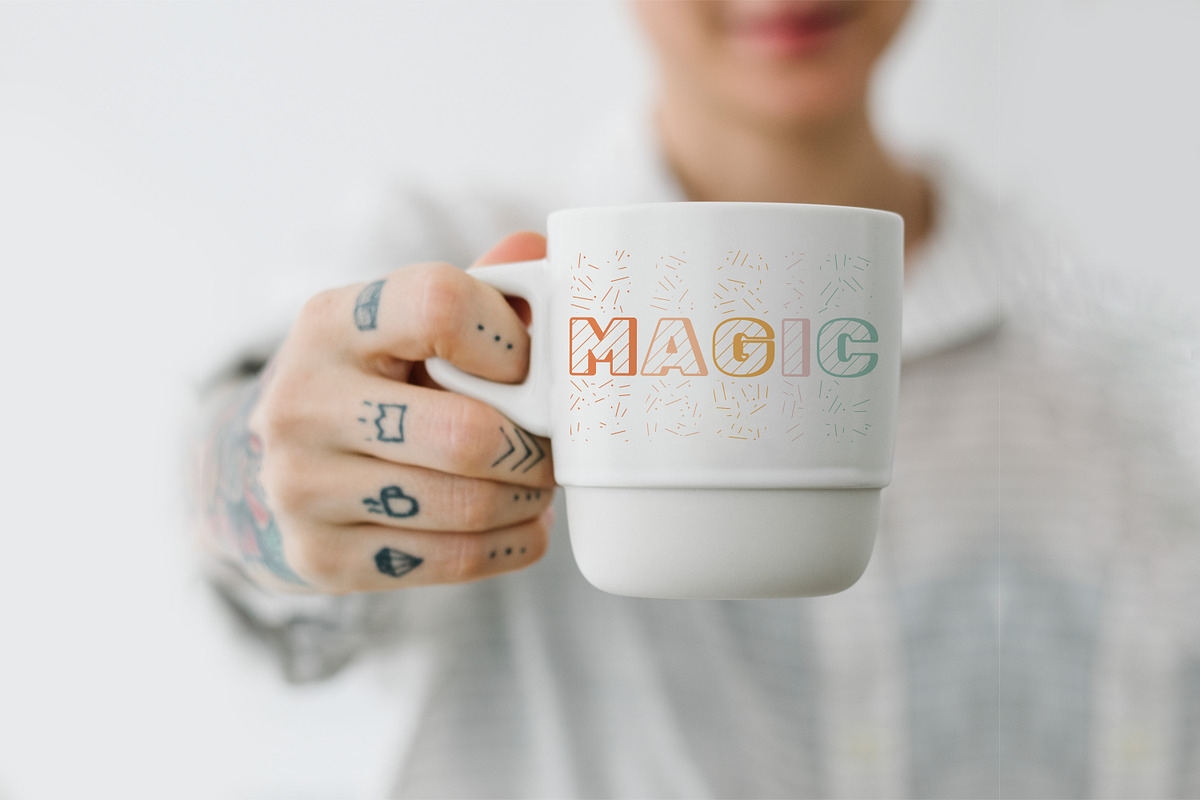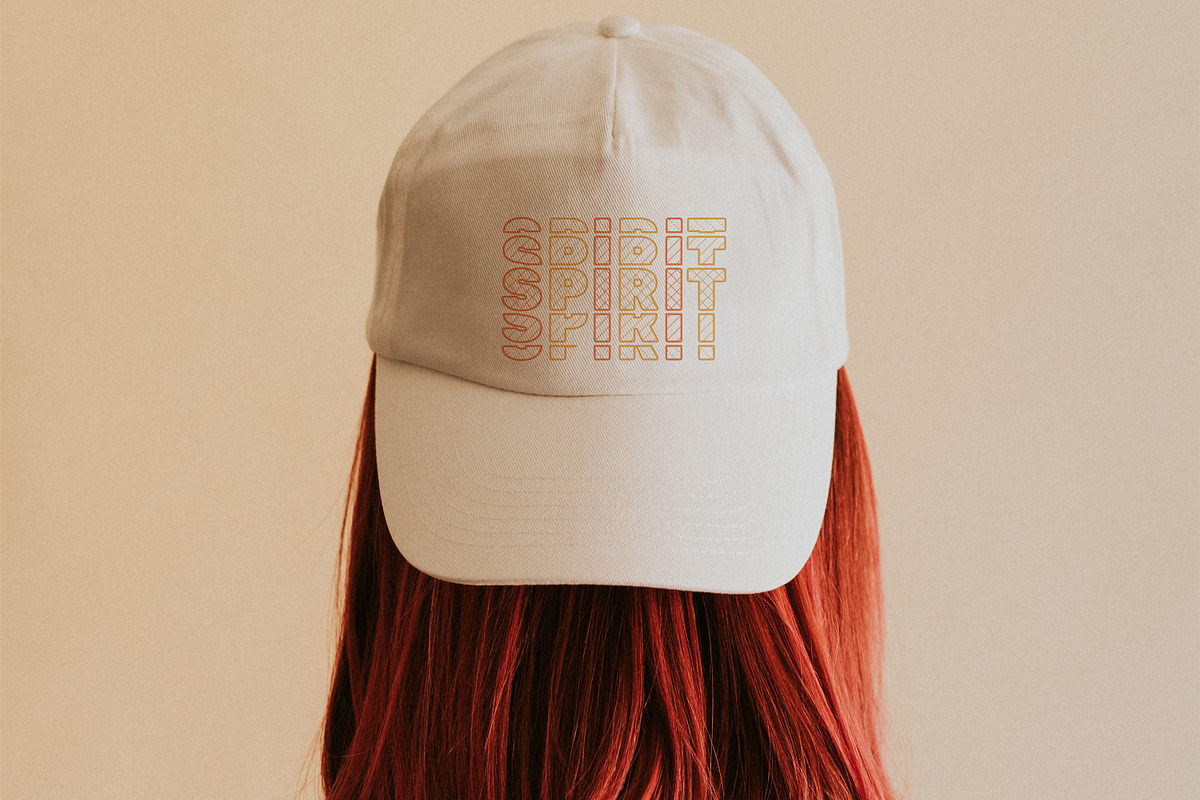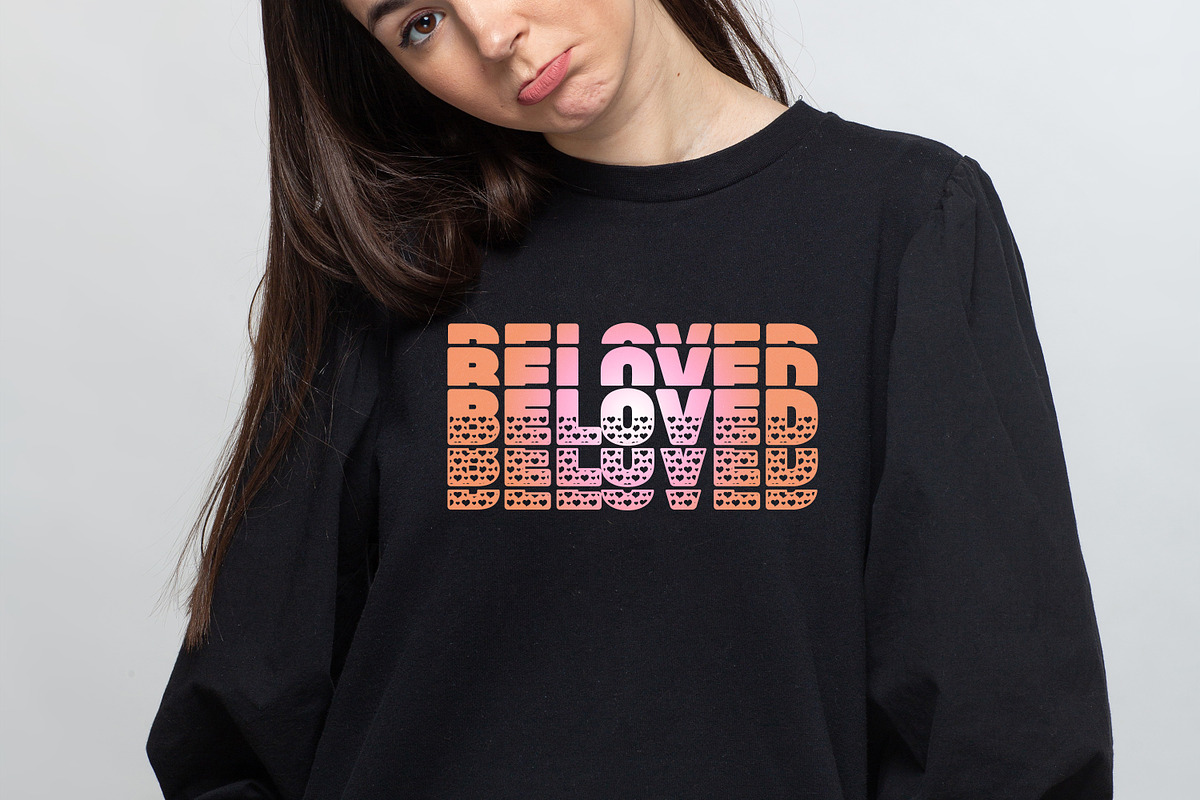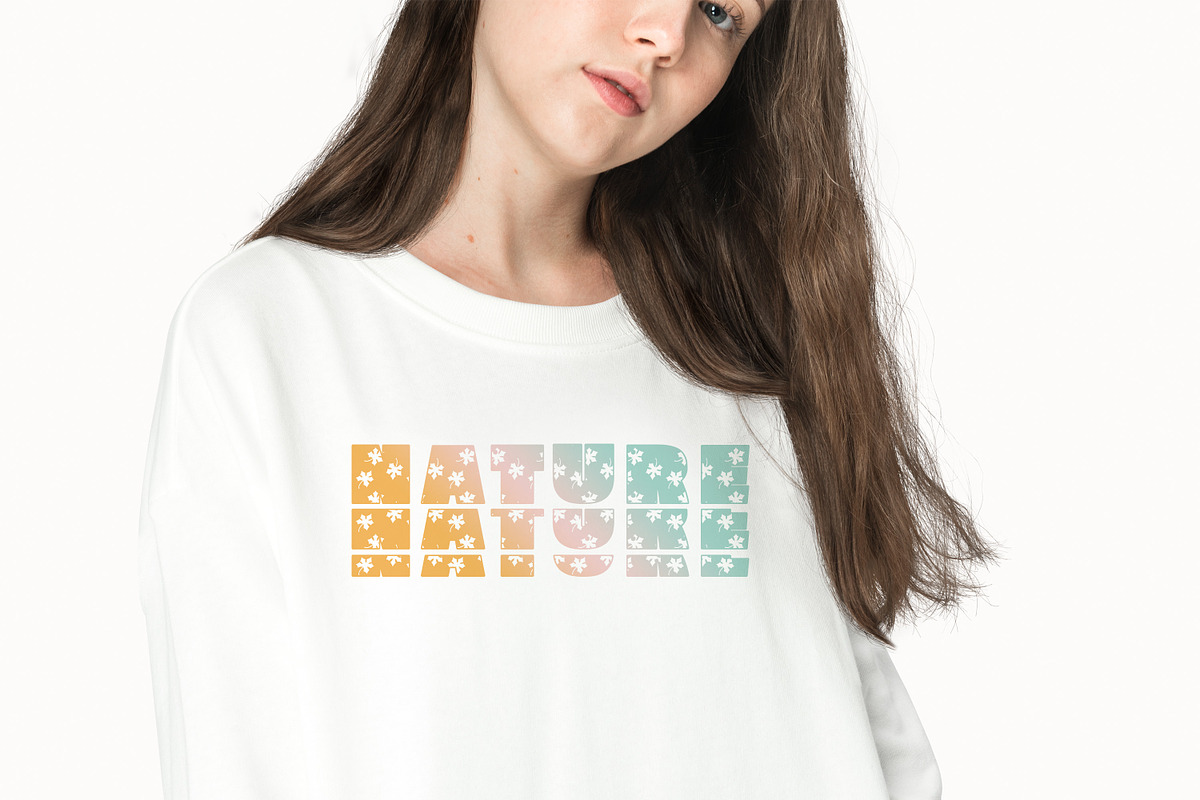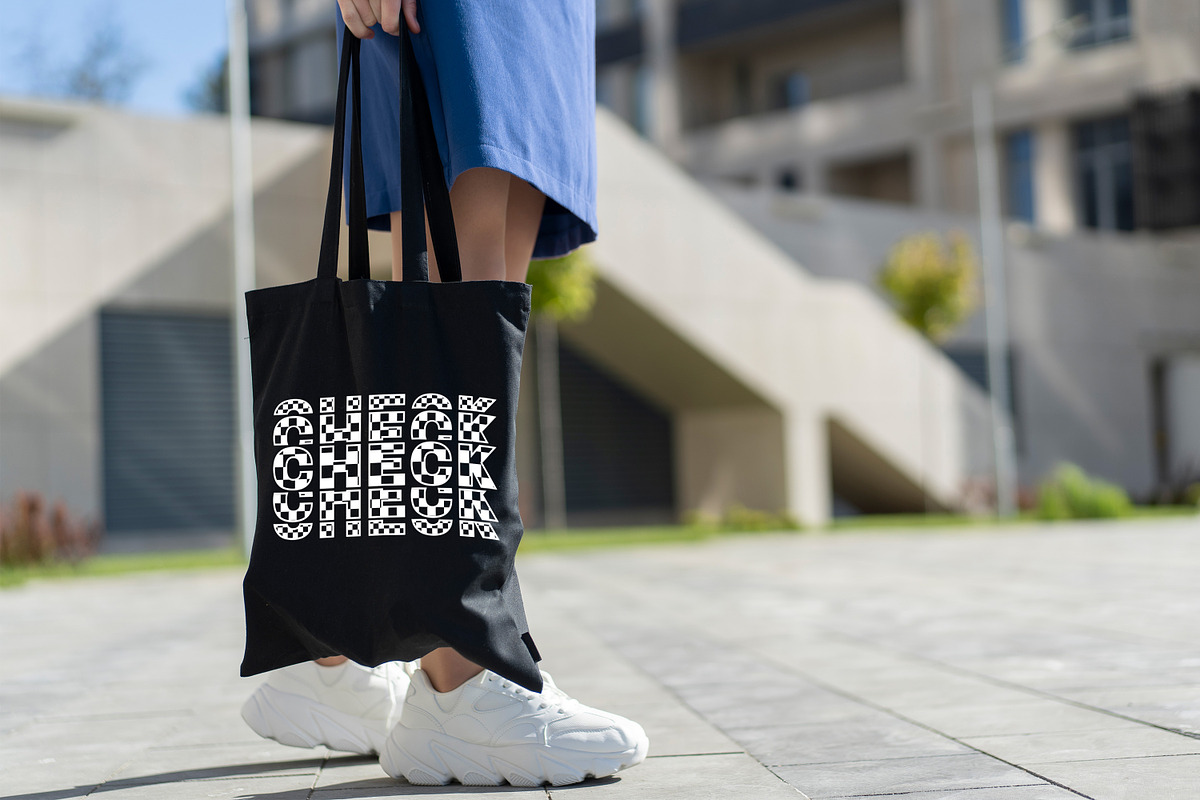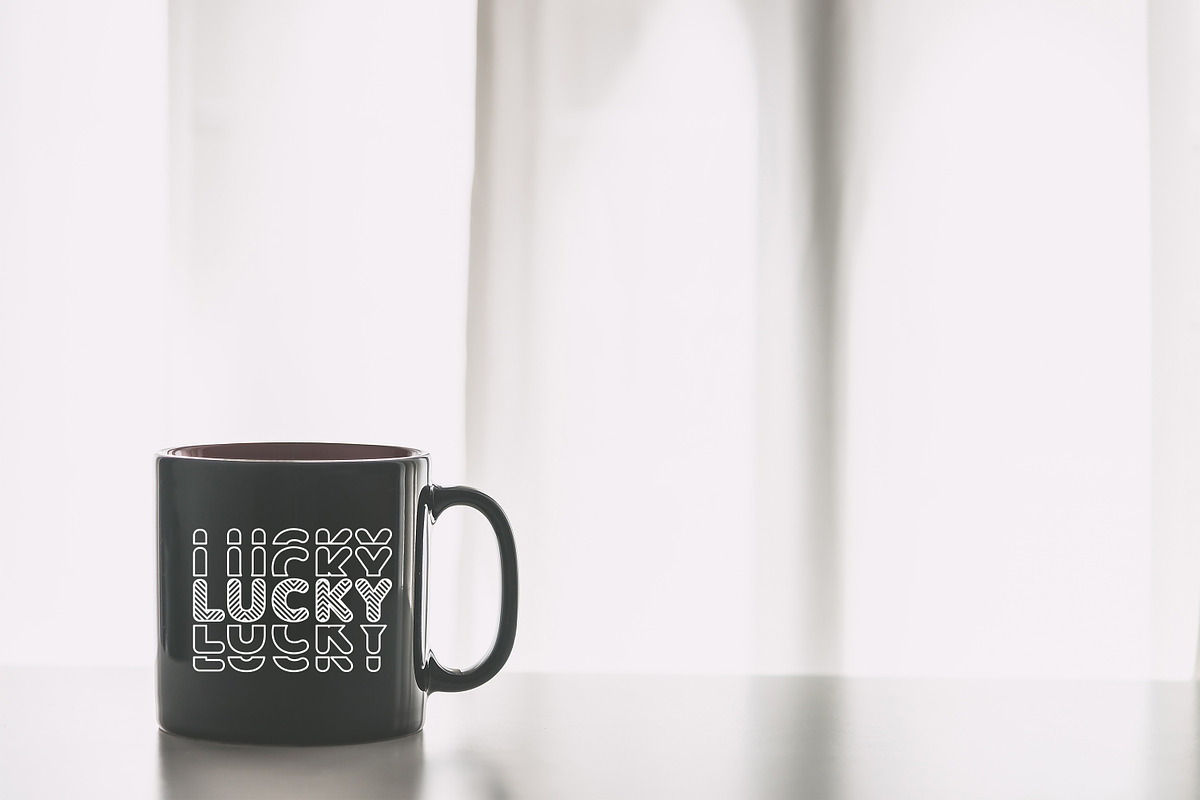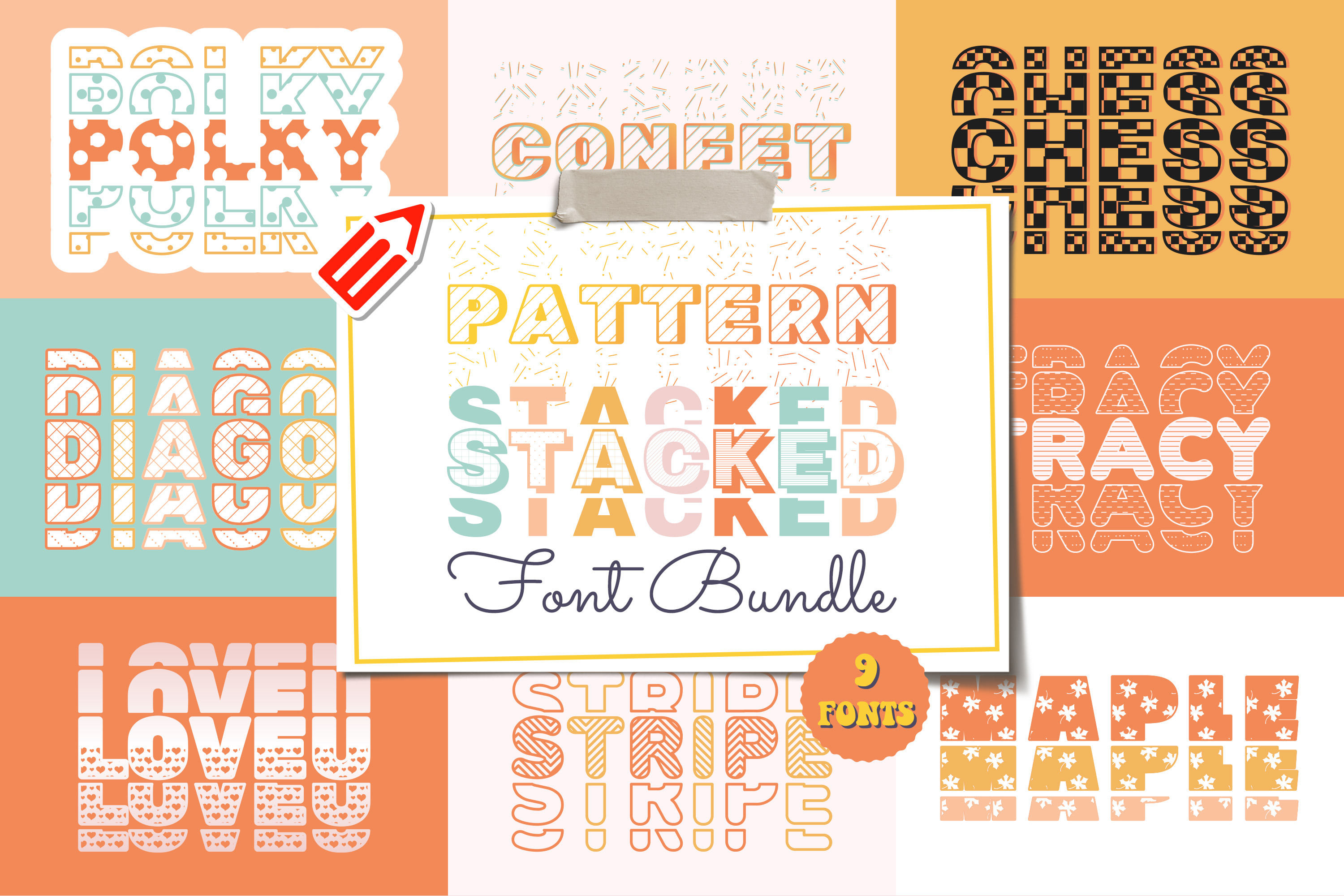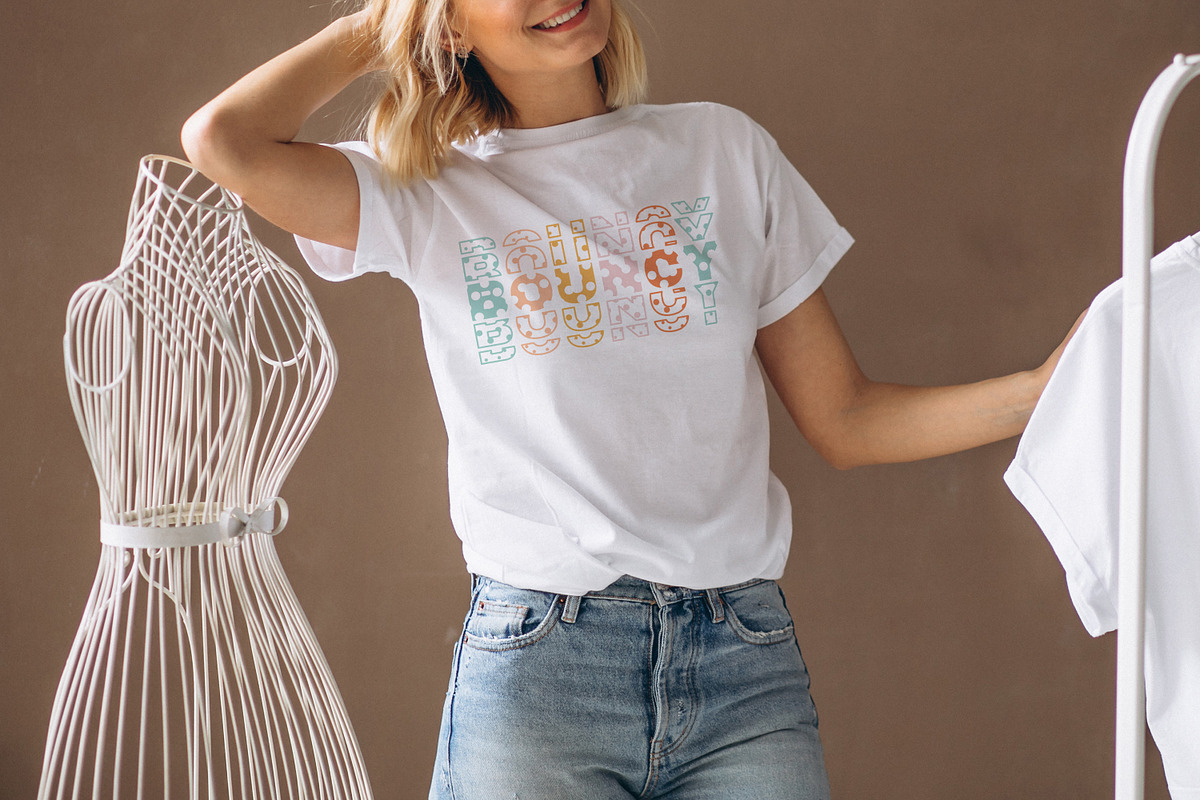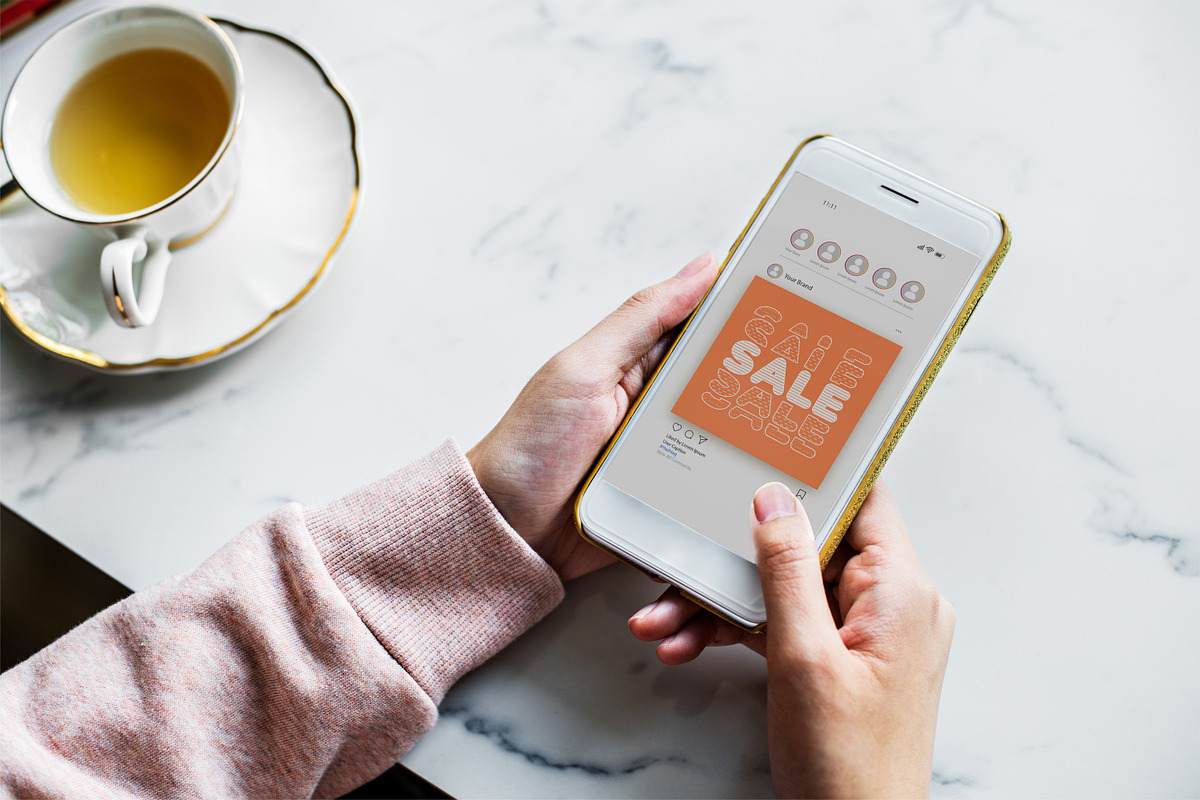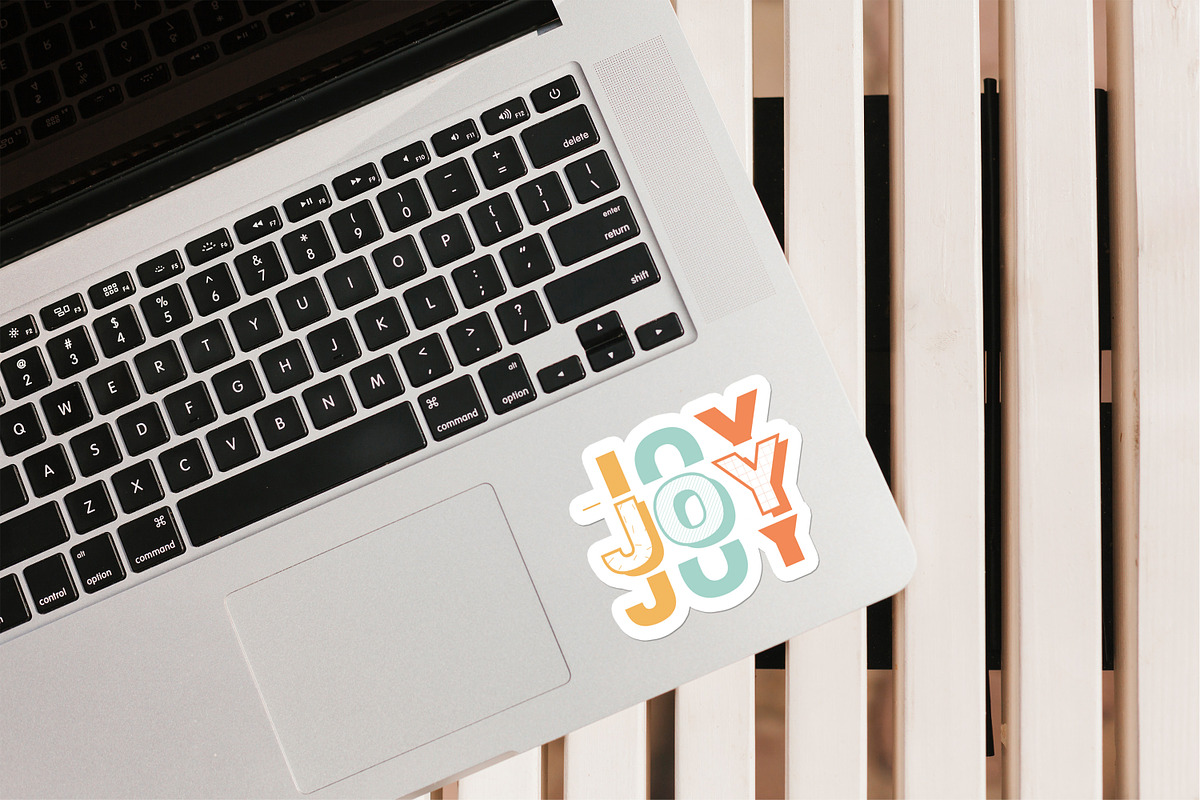
Patterned Stacked Font Bundle
Patterned Stacked Font Bundle is here with an incredible selection of 9 stacked fonts. A mesmerizing collection that adds a touch of intricate artistry to your designs! This enchanting bundle features Patterned Fonts designed to bring a world of visual textures and captivating designs to your projects. With a wide variety of unique and ornamental letterforms, this bundle allows you to create eye-catching typography, stunning branding, and mesmerizing artwork. Each font in this collection is a work of art on its own, combining intricate patterns, decorative elements, and creative flourishes. Whether you're designing invitations, posters, or artistic compositions, our Patterned Stacked Font Bundle will effortlessly elevate your creations with its captivating visual aesthetics. Embrace the artistry of patterns and let your designs speak volumes with our Patterned Stacked Font Bundle - where every letter is a masterpiece!
Included in this pack: Adorn Chess Confet Diagon LoveU Maple Polky Stripe Tracy